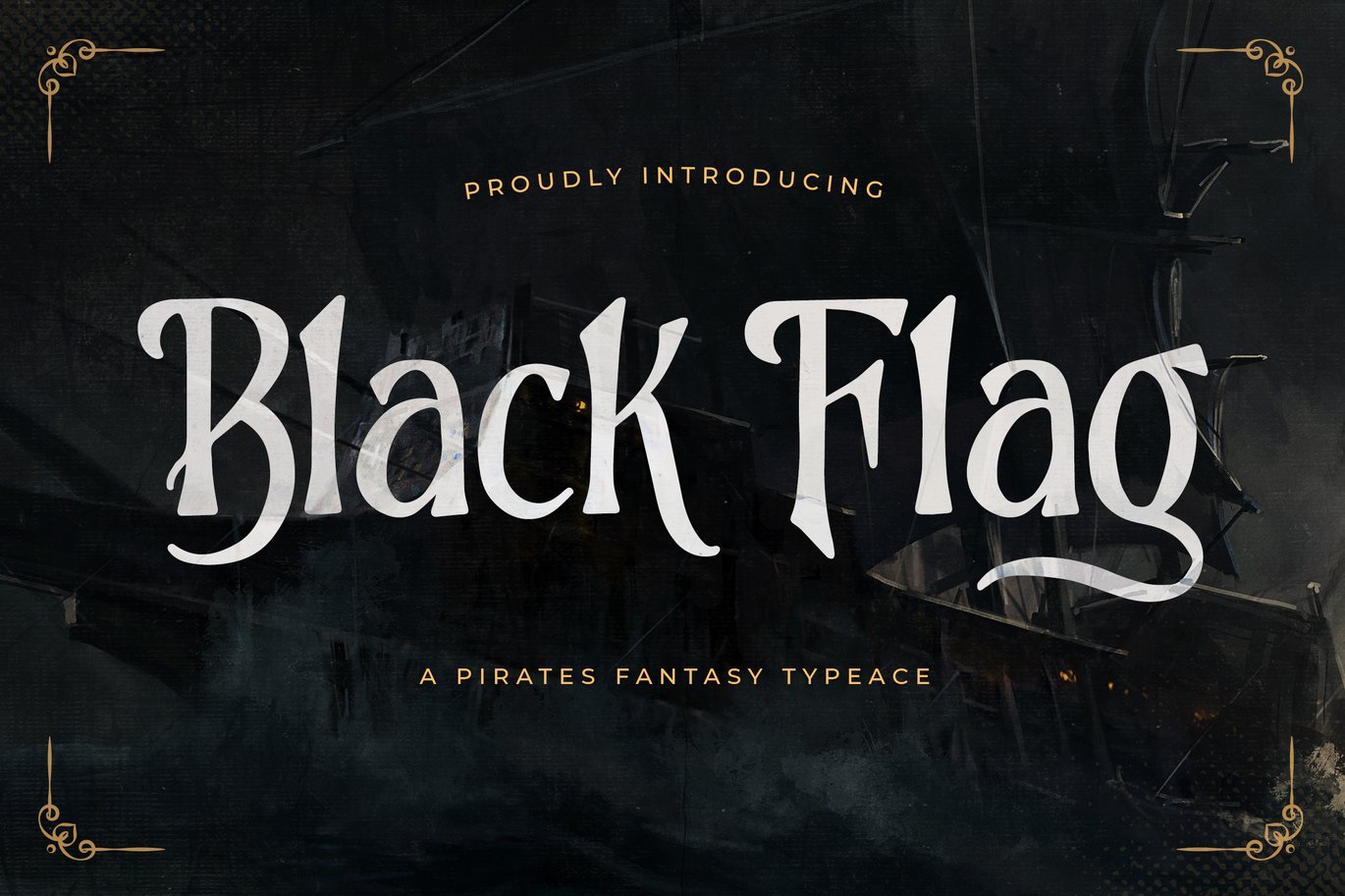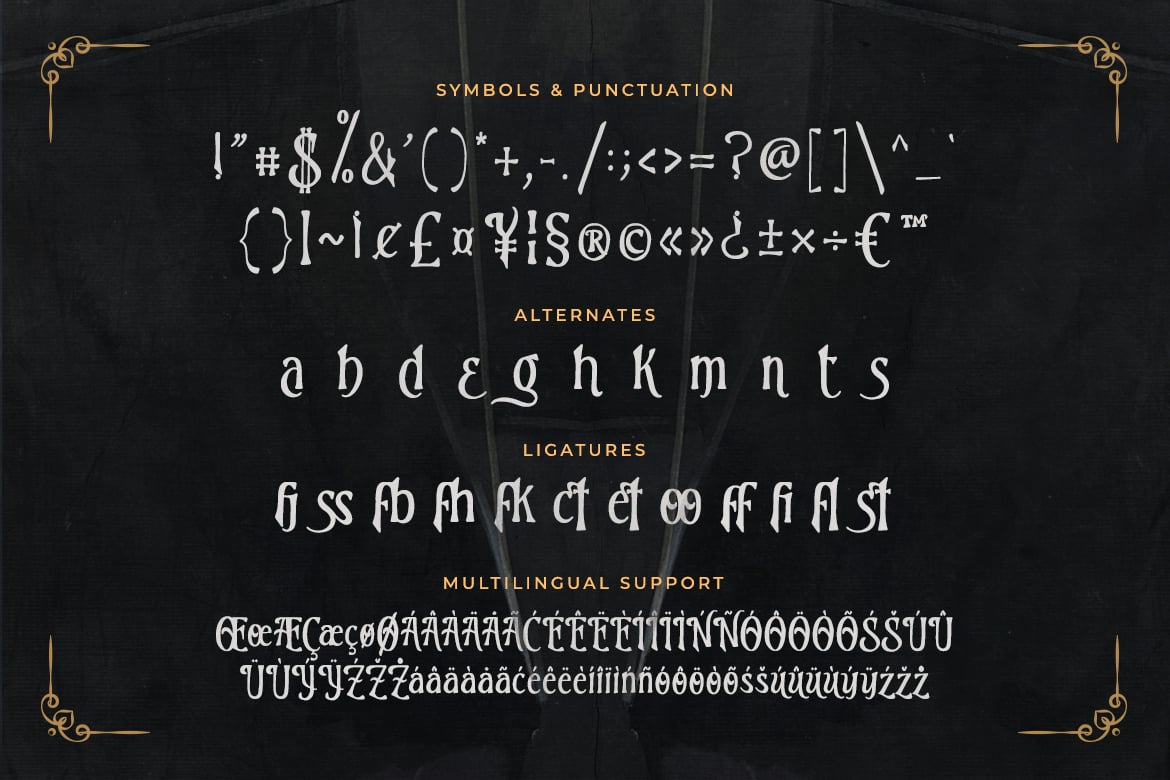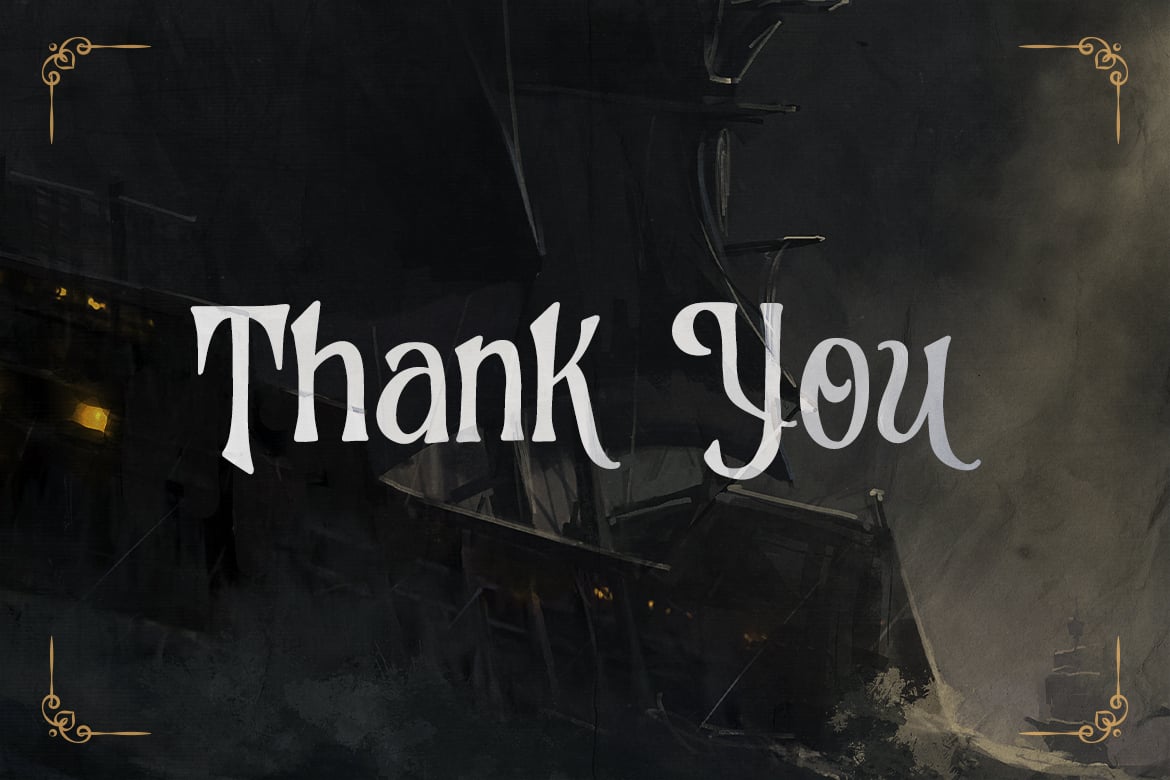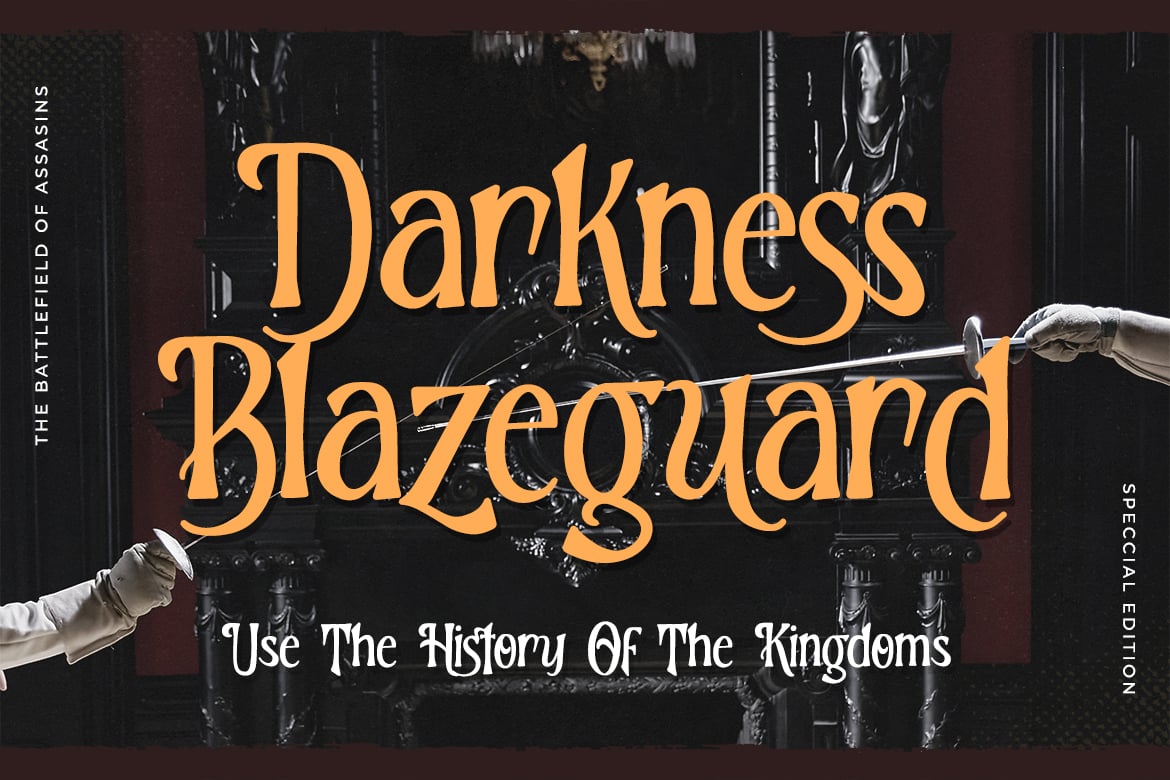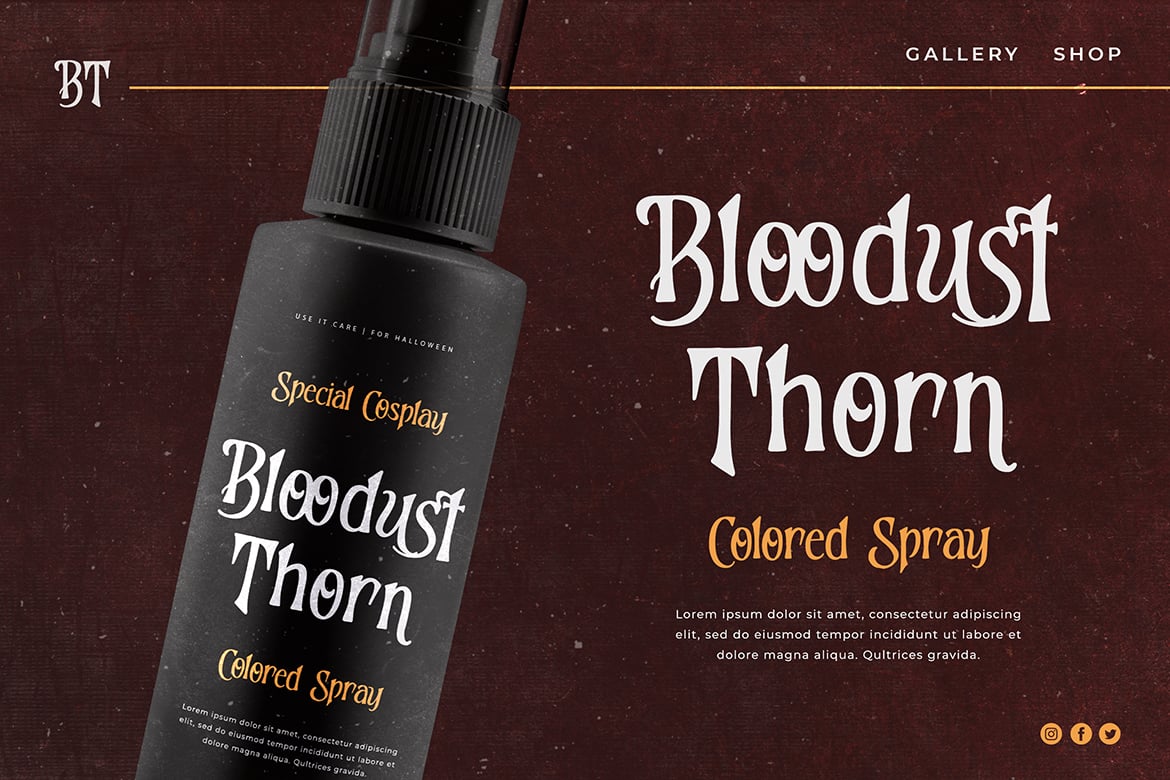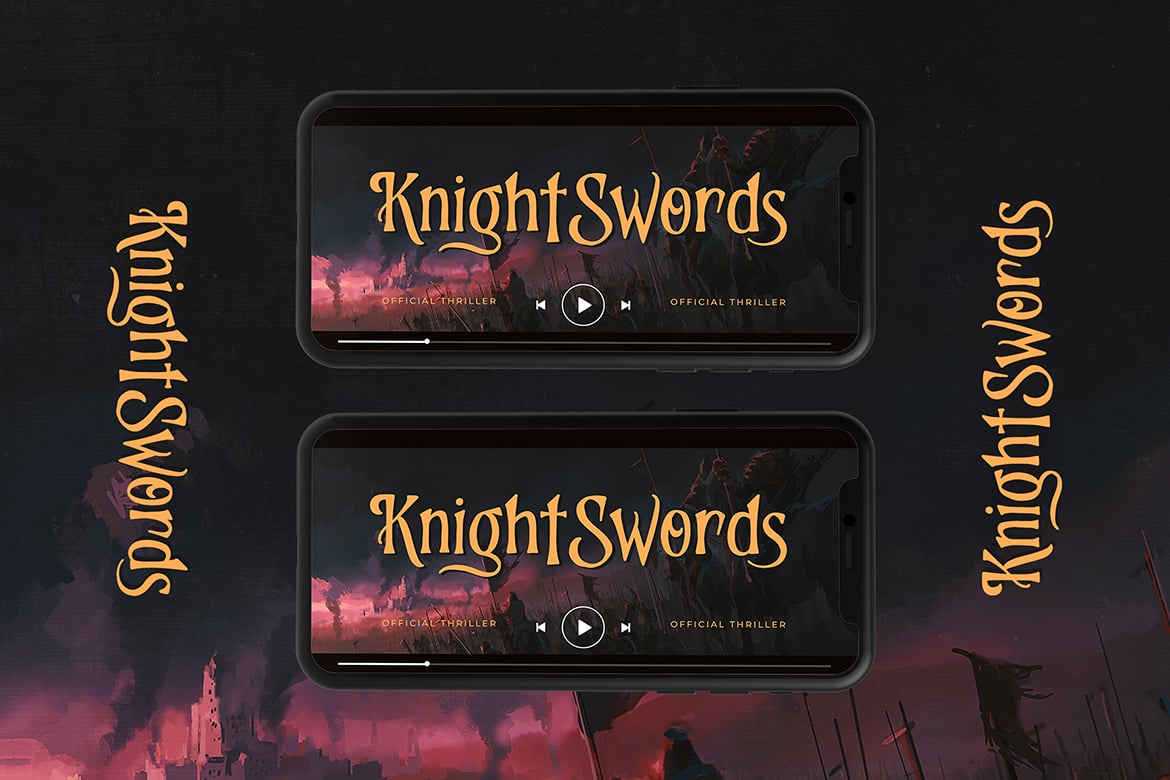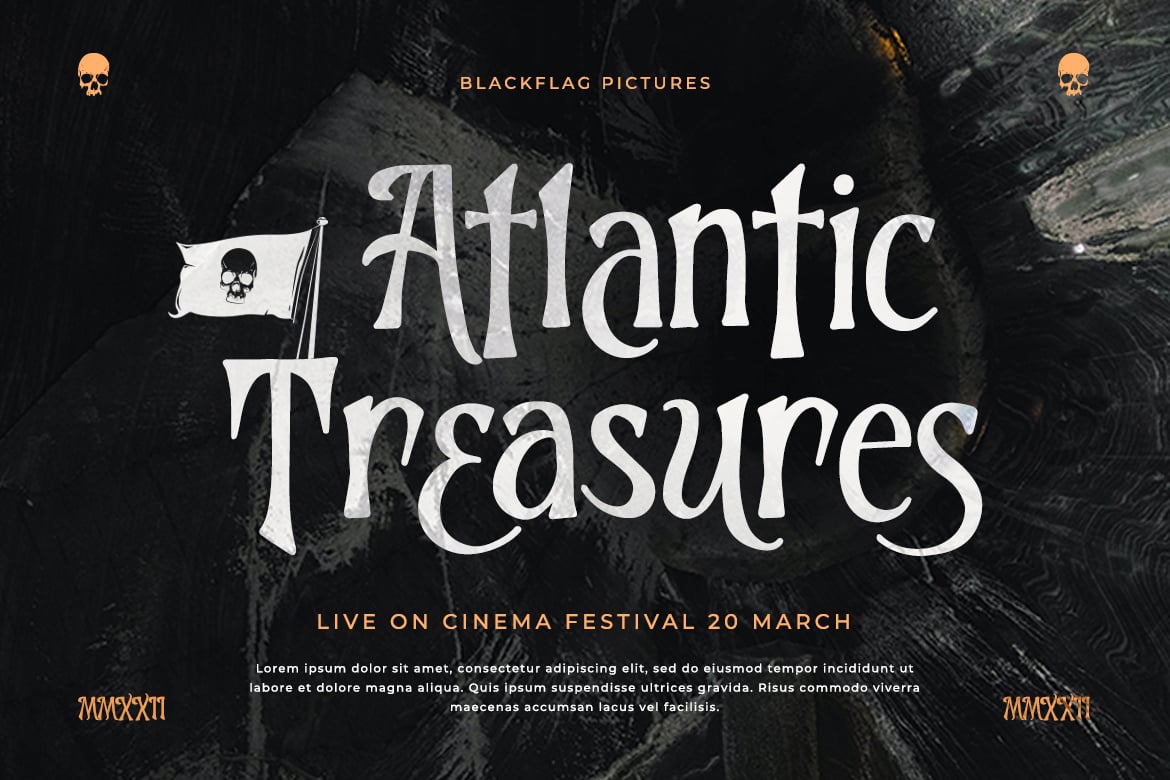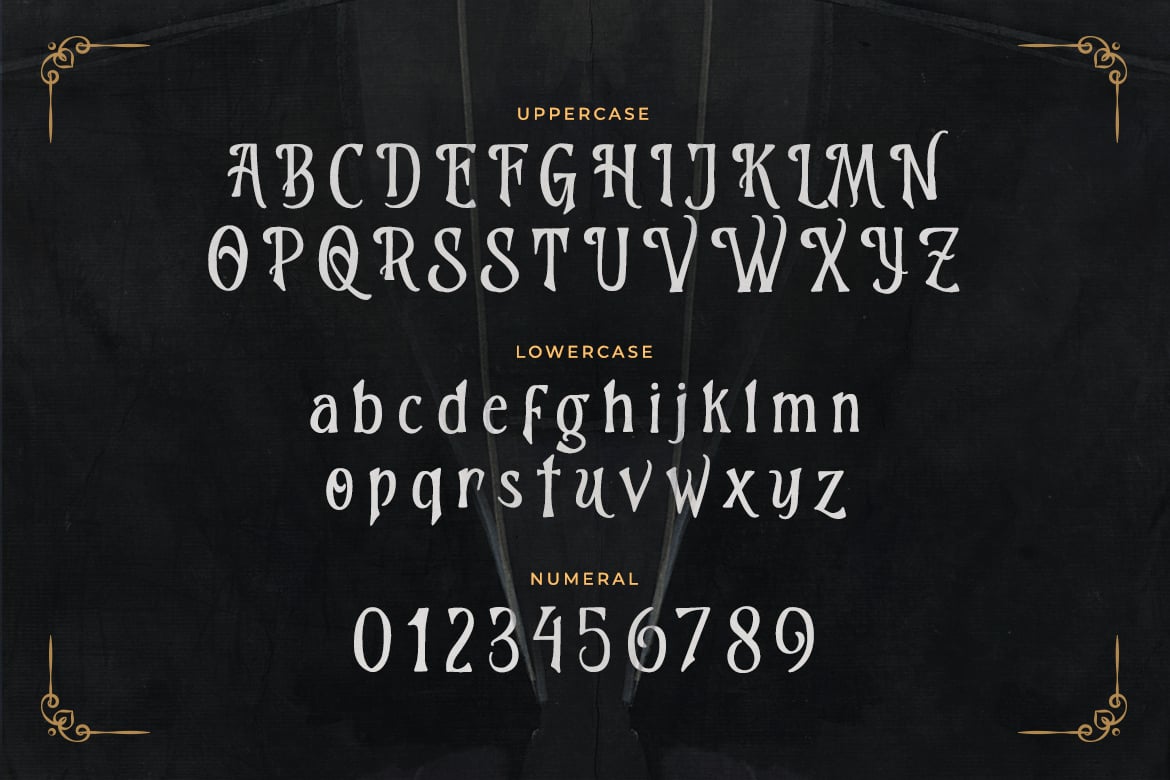
Black Flag – Pirates Fantasy Typeface
Black Flag is a pirate fantasy font that will immediately take you into an adventure vibe.
This font will be the ideal choice for any movie, game, and pirate-themed design you wish to develop
- Symbols & Punctuation